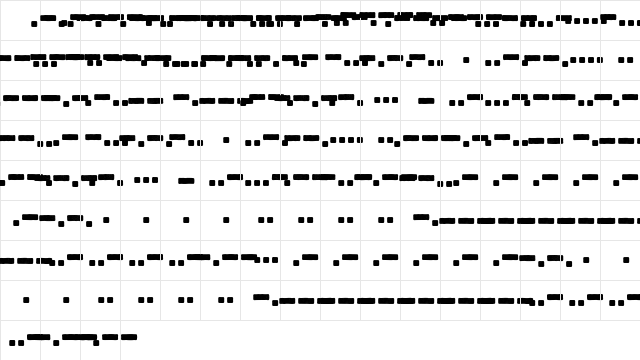
Bootcamp Morsecode uses fixed-width spacing throughout, giving it the structured, systematic character associated with coding environments and technical documentation.
Pro Tip: Use Bootcamp Morsecode with slightly increased line-height for extended reading - fixed-width spacing can feel dense in longer passages without extra breathing room.